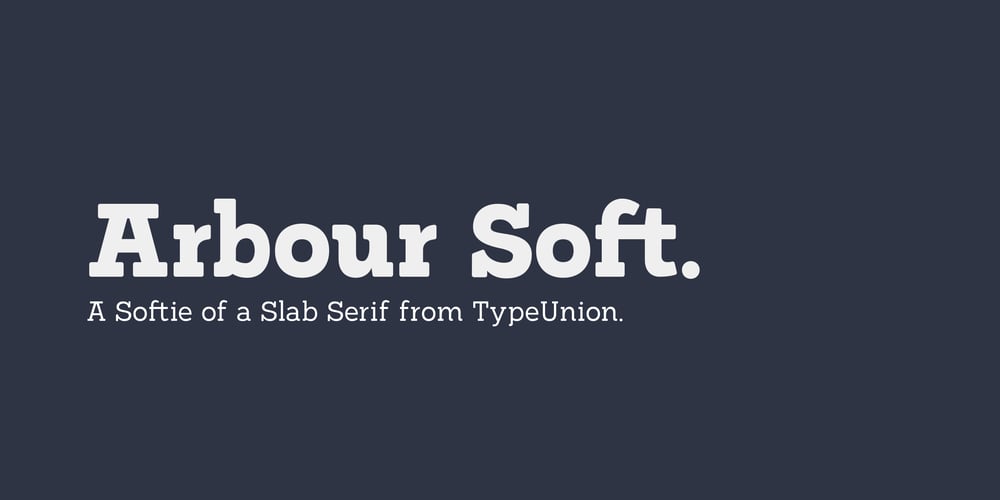
Arbour Soft Font Family was designed by Dan Jones and published by TypeUnion. Arbour Soft contains 14 styles and family package options. Arbour Soft is the cheeky version of it’s big brother, Arbour. The soft version creates a smooth finish that flows perfectly across screens and print. Arbour Soft comes in 7 weights, from a delicate extra-light to a soft, strong black, with matching soft italics for each upright. The soft black weights are perfect for your new brand or article headlines, and the light weights are great for calling out text. The mid weights are perfect for longer texts.